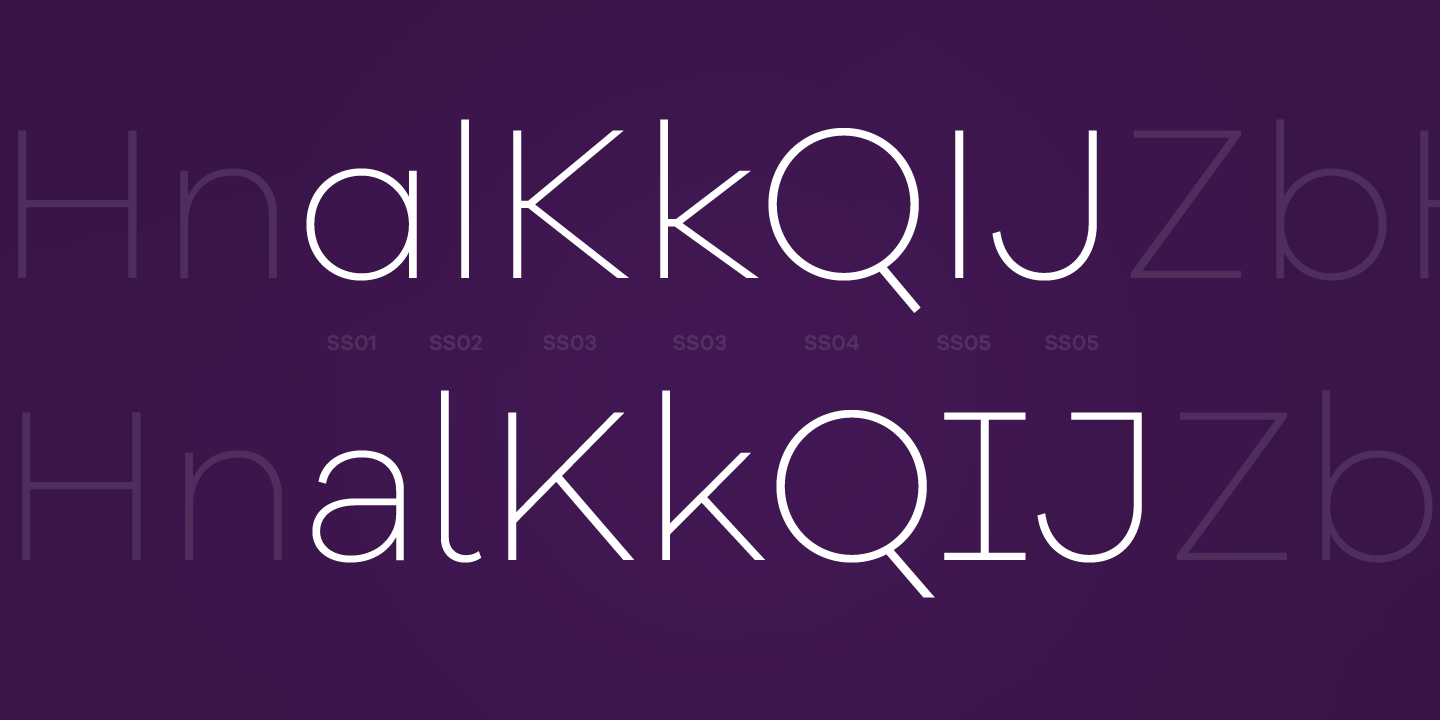
Galano Grotesque Google Font
Galano Grotesque Google Font - The design was influenced by classic. Web making the web more beautiful, fast, and open through great typography
Web making the web more beautiful, fast, and open through great typography The design was influenced by classic.
The design was influenced by classic. Web making the web more beautiful, fast, and open through great typography
Web making the web more beautiful, fast, and open through great typography The design was influenced by classic.
The design was influenced by classic. Web making the web more beautiful, fast, and open through great typography
Web making the web more beautiful, fast, and open through great typography The design was influenced by classic.
The Design Was Influenced By Classic.
Web making the web more beautiful, fast, and open through great typography